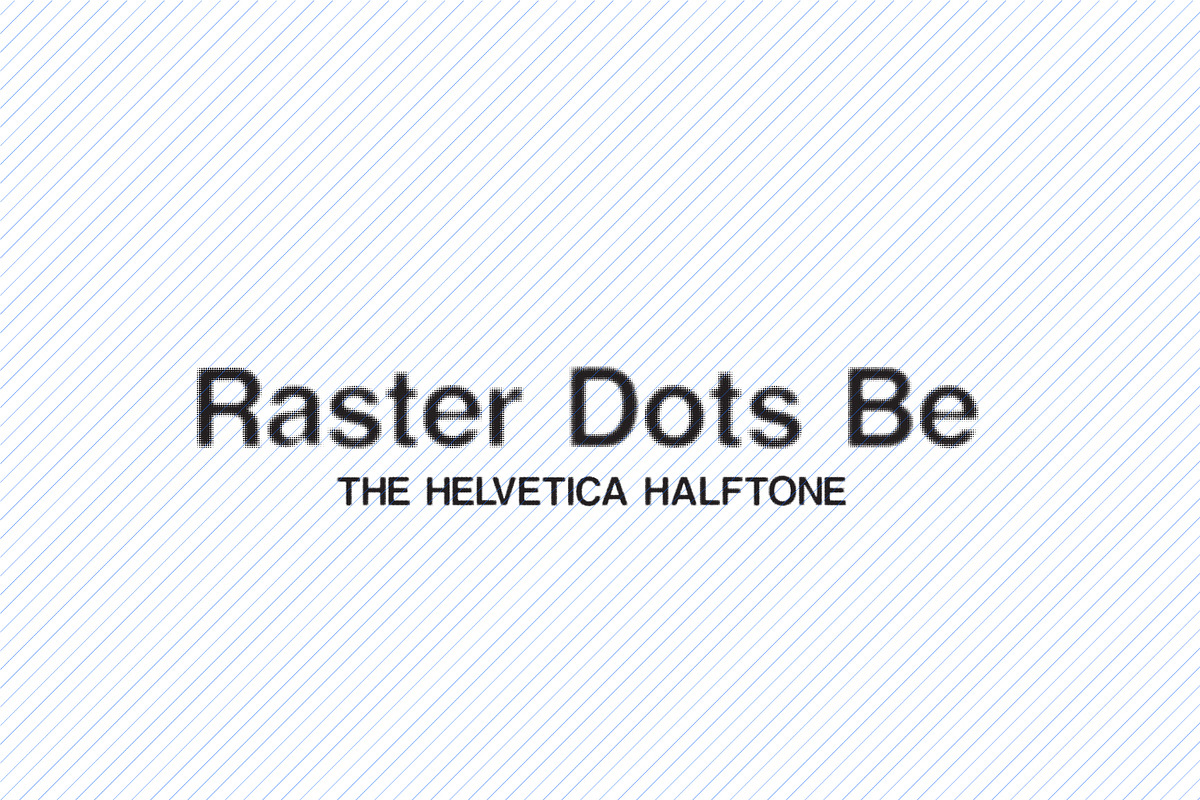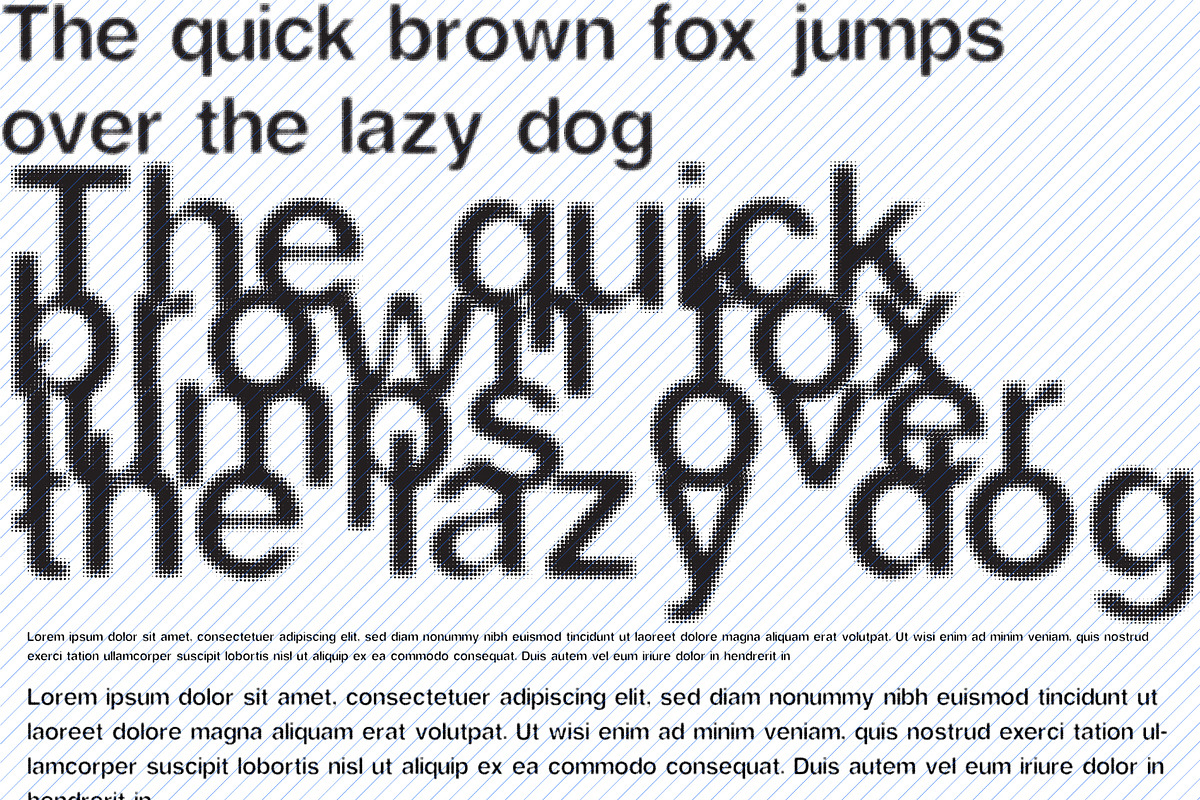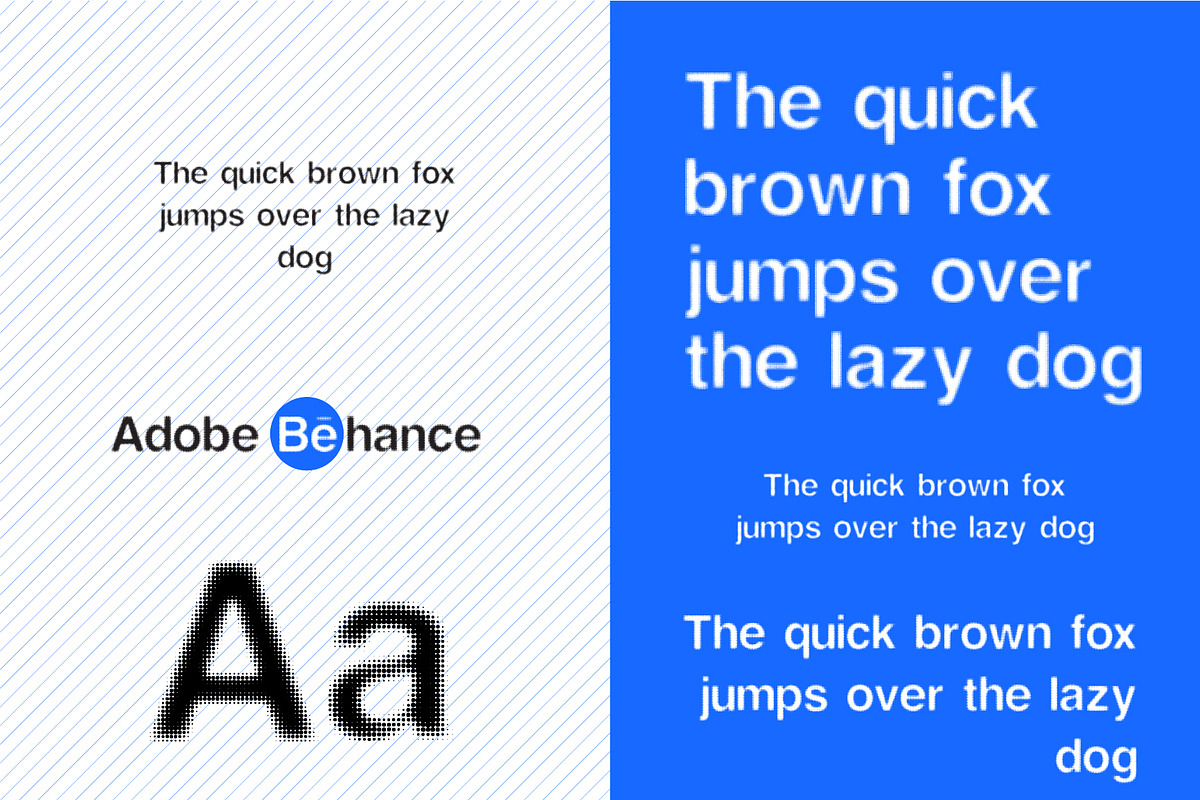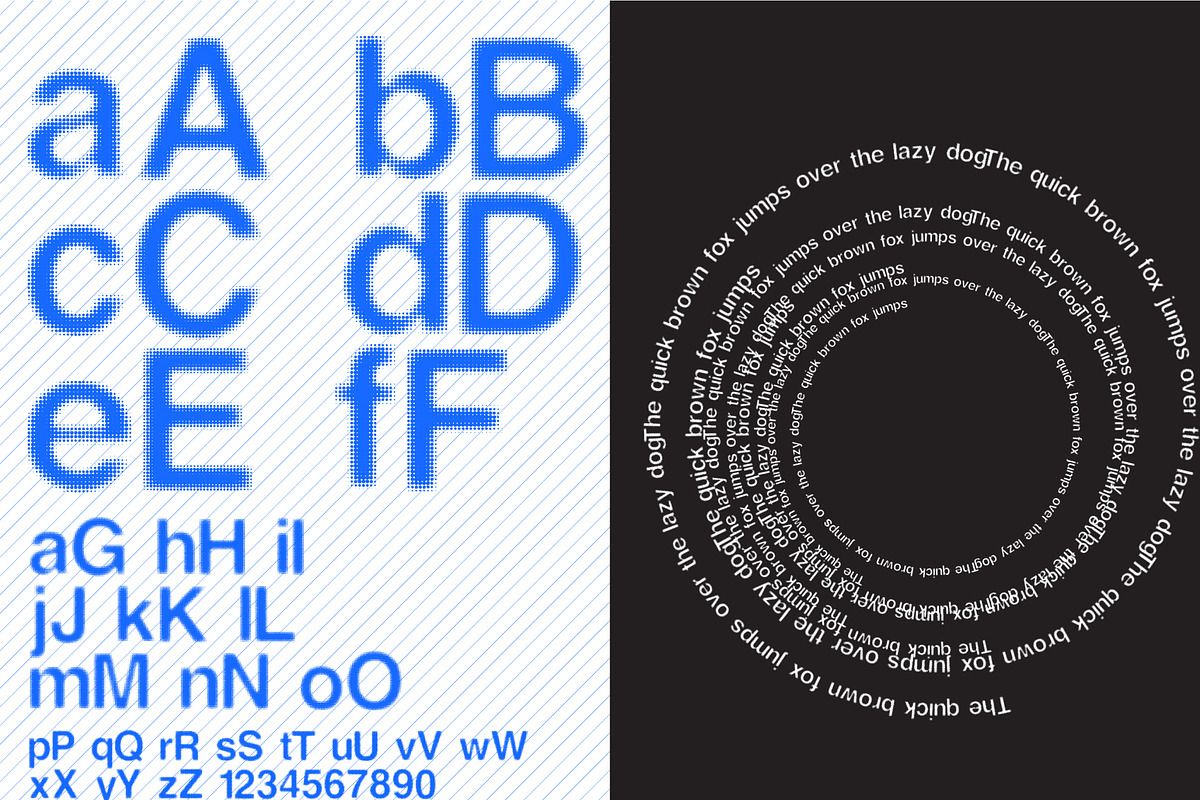
Raster Dots Be : Display Typface
The New Font Raster Dots Helvetica,
RASTER DOTS BE Helvetica, also known by its original name Neue Haas Grotesk, is a widely used sans-serif typeface developed in 1957 by Swiss typeface designer Max Miedinger and Eduard Hoffmann